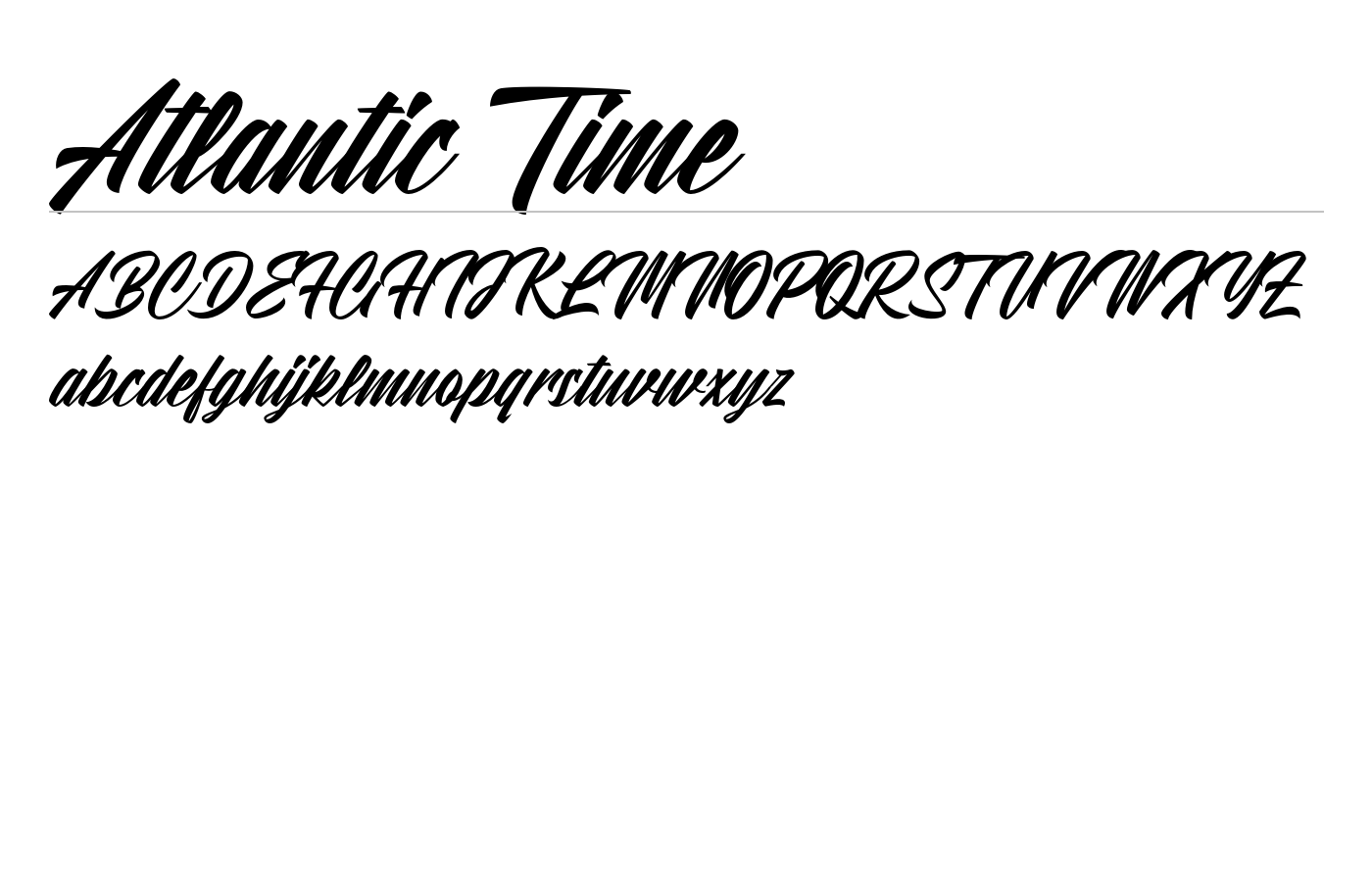
Atlantic Time is a bold, cursive script font with a lively, handwritten style that captures a sense of energetic flow and elegance. Its smooth, connected strokes and moderate contrast give it a dynamic yet readable appearance, making it ideal for branding, invitations, and headlines where a personal and stylish touch is desired. This font works well for creative projects that want to convey a fun, modern, and confident personality.
Atlantic Time Font